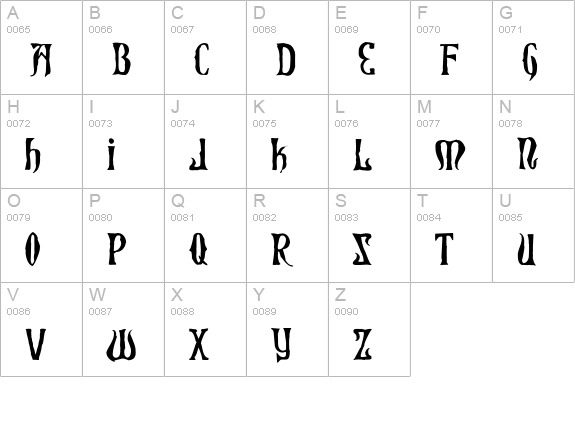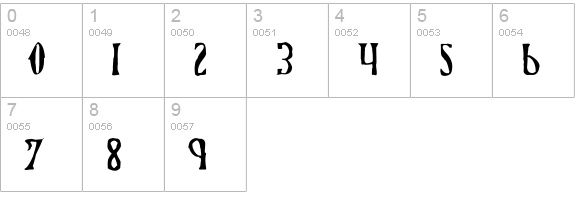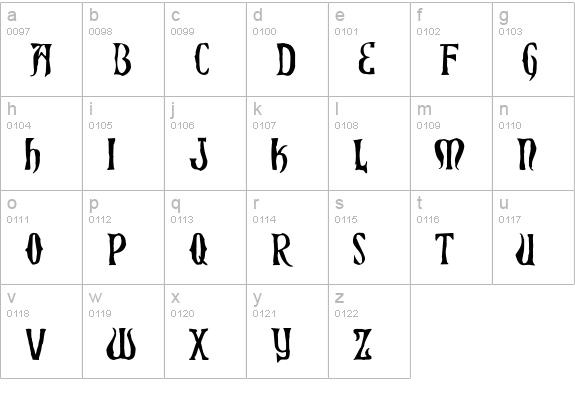
Xiphos Horror Font Details
The Xiphos Horror font is a chilling and captivating typeface designed to send shivers down your spine. Its jagged edges and sinister curves evoke a sense of terror and unease, making it perfect for Halloween designs, horror movie posters, and dark-themed projects. With its unique and haunting appearance, Xiphos Horror is sure to leave a lasting impression on anyone who sees it. And the best part? Xiphos Horror is available for free download at FontsMarket.com! This means you can easily add a touch of fear and foreboding to your projects without breaking the bank. Don't miss out on the opportunity to unleash the dark and twisted vibes of Xiphos Horror in your designs today. Download it now and let your creativity run wild with this eerie and captivating font.